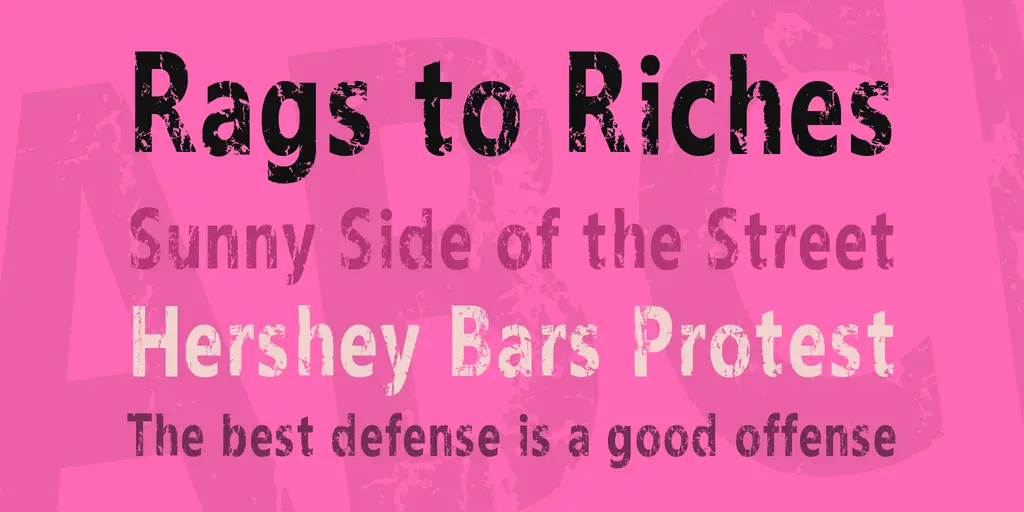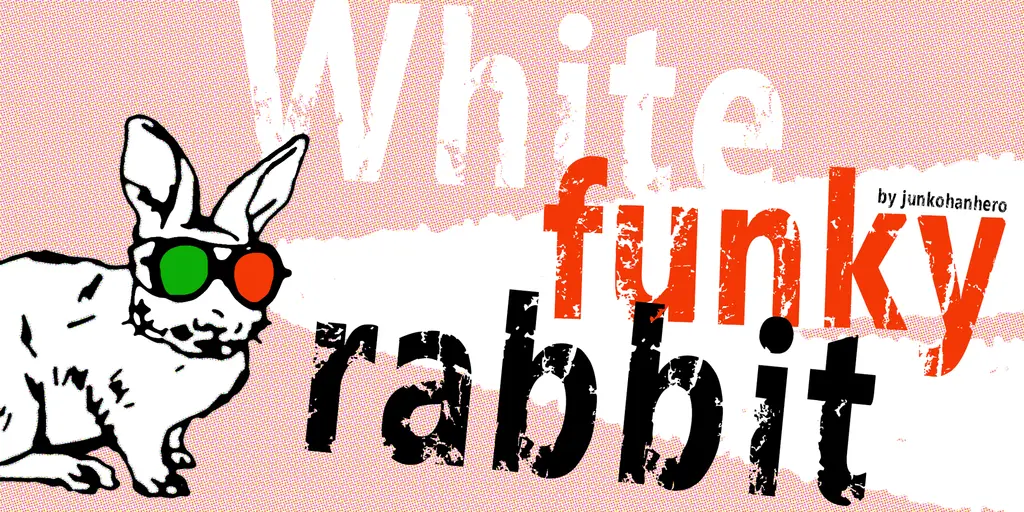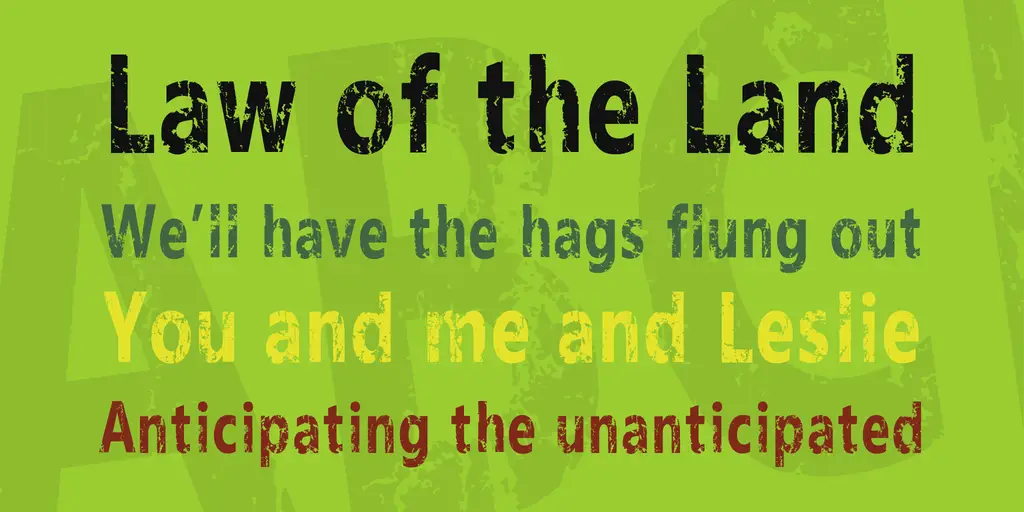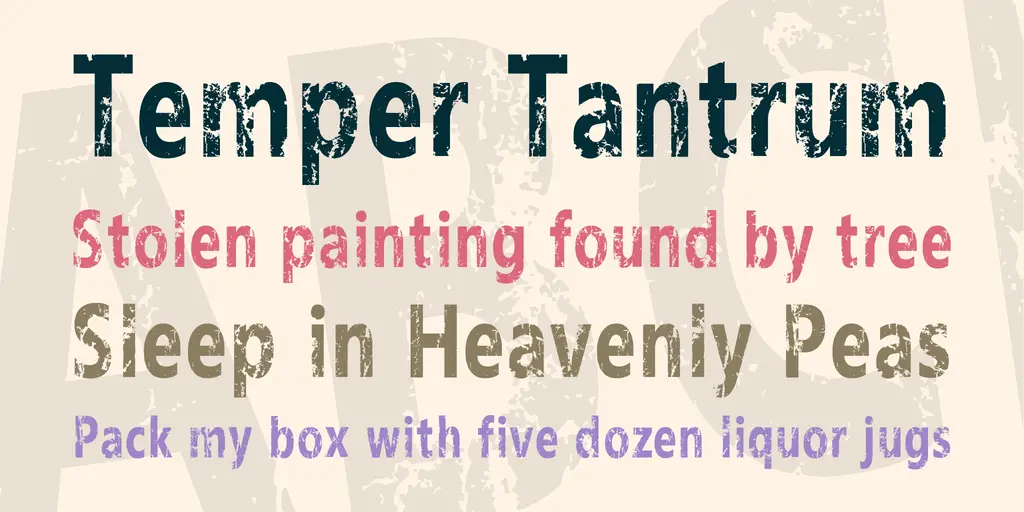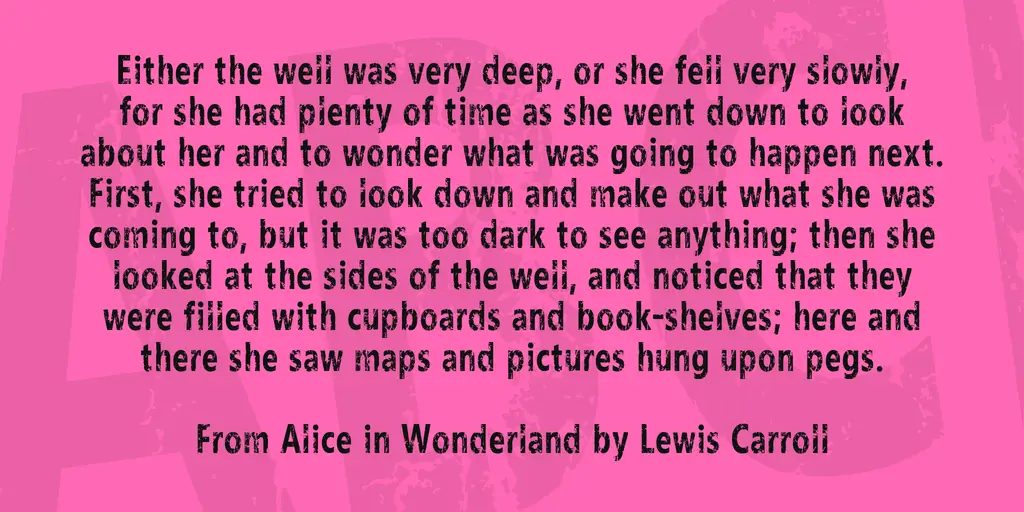
The White Funky Rabbit Font is a playful and unique typeface designed to add a whimsical touch to your projects. With its bold and rounded letterforms, this font is perfect for creating eye-catching branding, logos, and promotional materials.
- Stylish and fun design
- Uppercase and lowercase letters
- Numbers and punctuation included
Ideal for use in children’s books, posters, social media graphics, and any creative project that requires a fun and lively font.